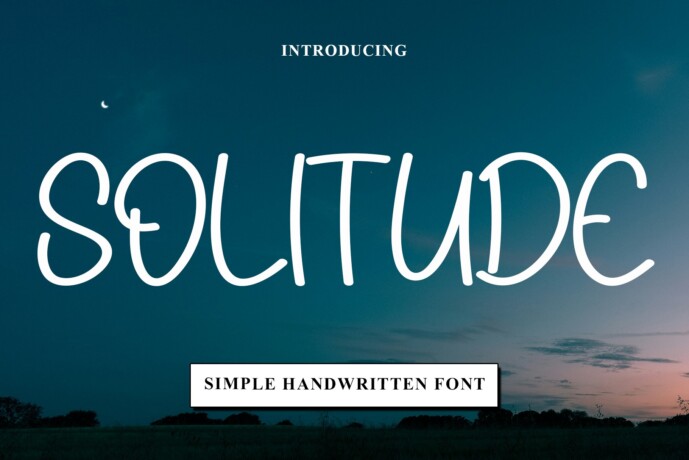
Solitude Font
Designer: Black line
Solitude is a sweet and friendly handwritten font. Fresh and casual, this font is ideal for writing wedding invitations, cards, or any other design that might need a lovely touch.